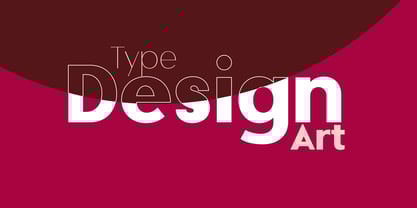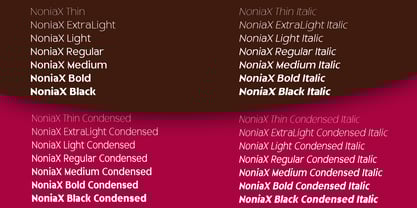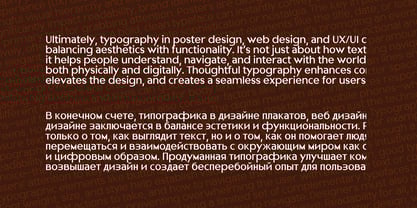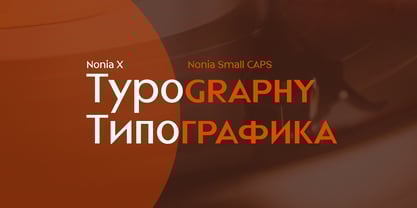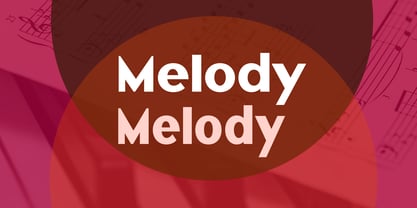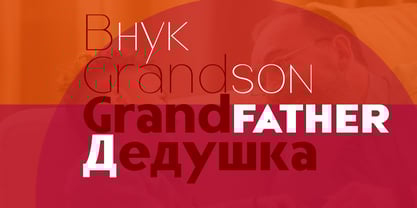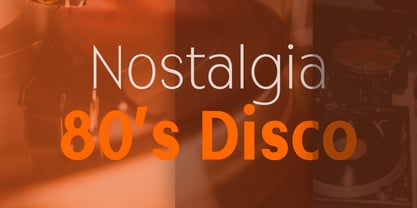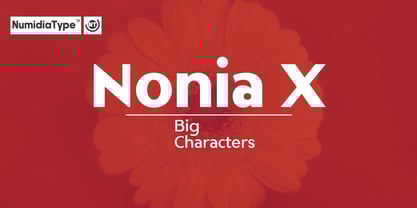
Nonia X
by NumidiaType
The Nonia X Font Family was designed by Yassine Abdi and published by NumidiaType. Nonia X contains 28 styles and family package options.
Nonia™ X (Big Lowere Case) is a modern grotesque sans serif typeface designed for versatility and clarity across a wide range of applications. Crafted with precision and personality, Nonia™ X features two distinct families, Default and Condensed offering a total of 28 styles to suit every design need.
The Default family is tailored for striking display use, boasting bold shapes and a confident rhythm that commands attention. In contrast, the Condensed family is optimized for long form text, providing excellent readability in tighter spaces without sacrificing style.
One of this typeface’s defining characteristics is its big lowercase proportions, which enhance legibility and give the typeface a friendly, approachable tone. Whether used in branding, editorial design, or digital interfaces and delivers a perfect balance of function and form.
Nonia X is available in two families: Default and Condensed.